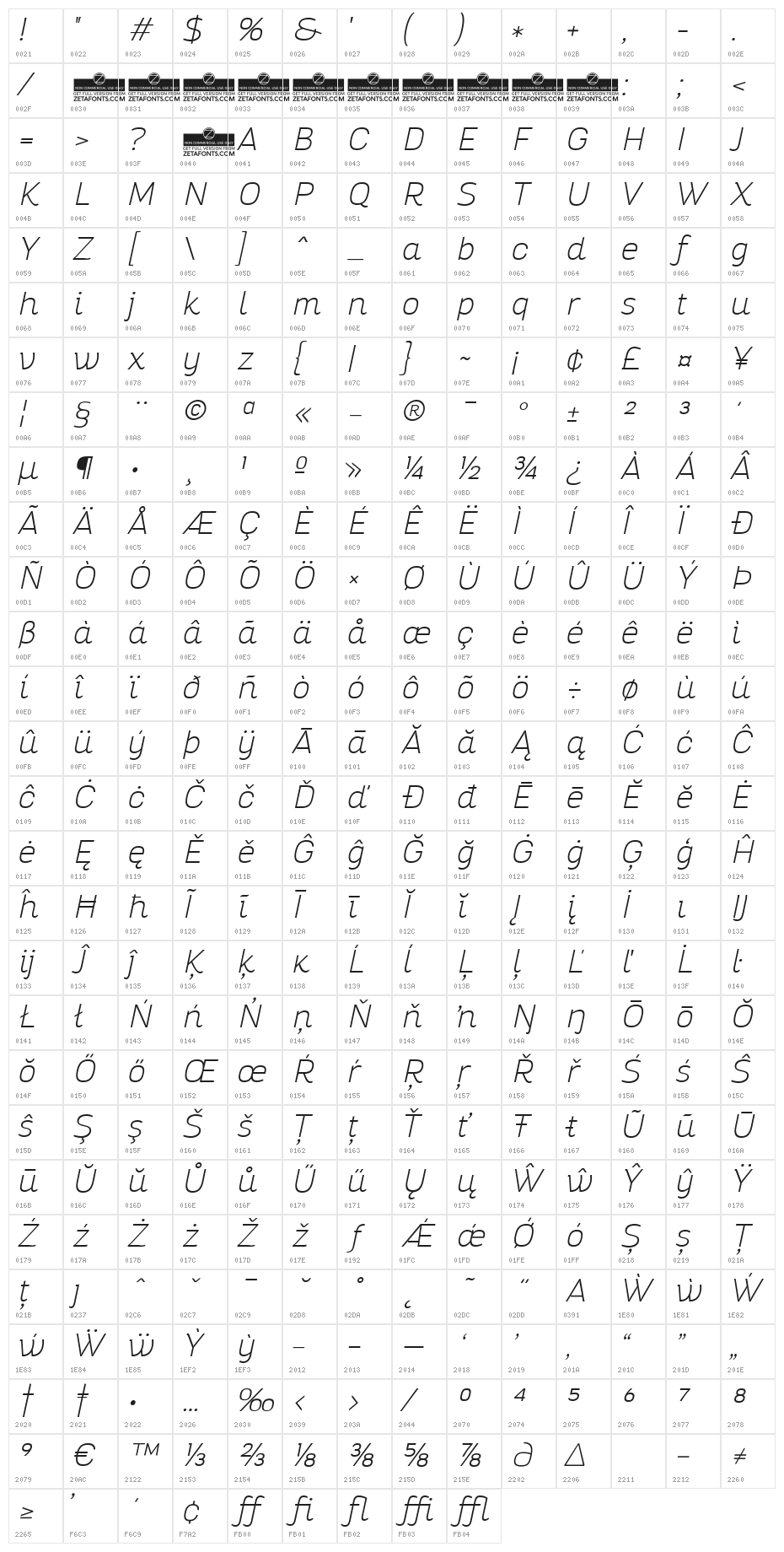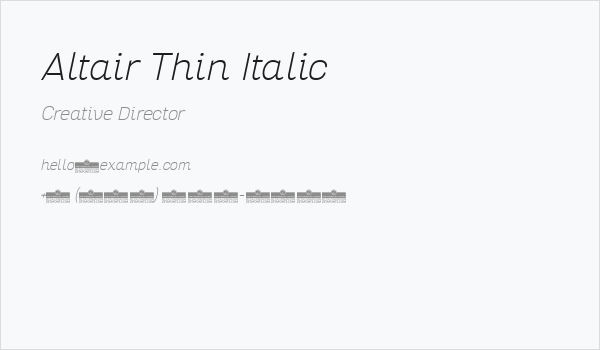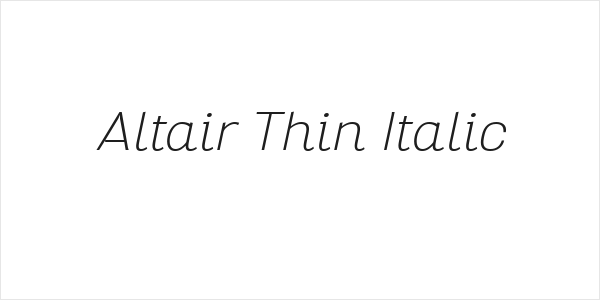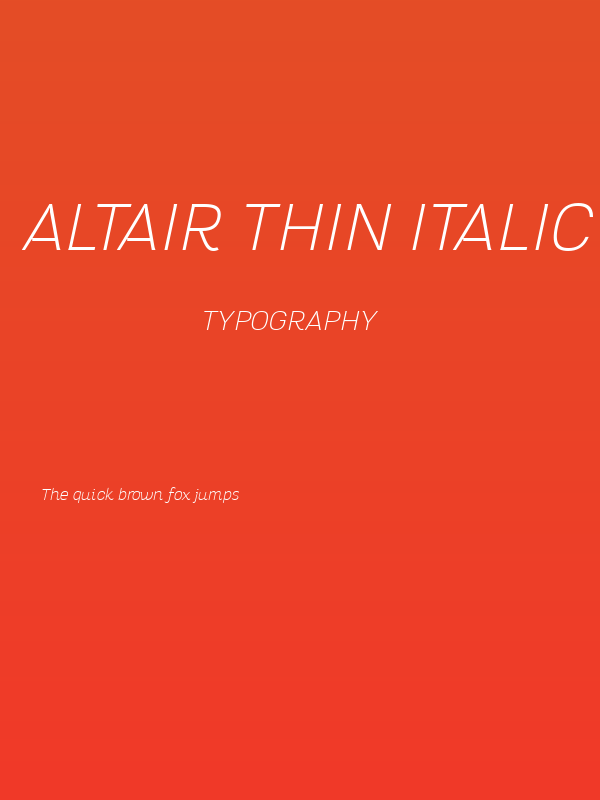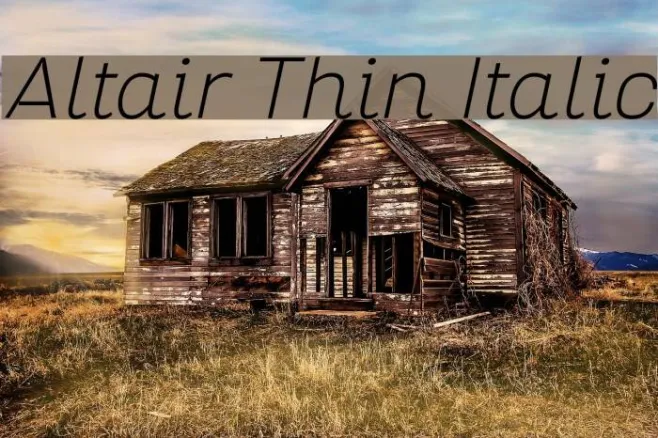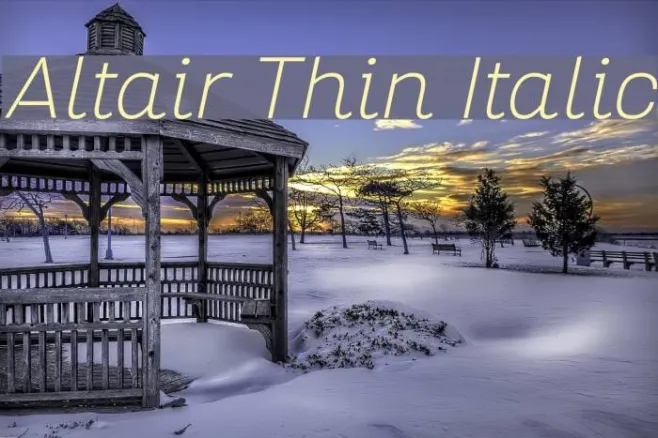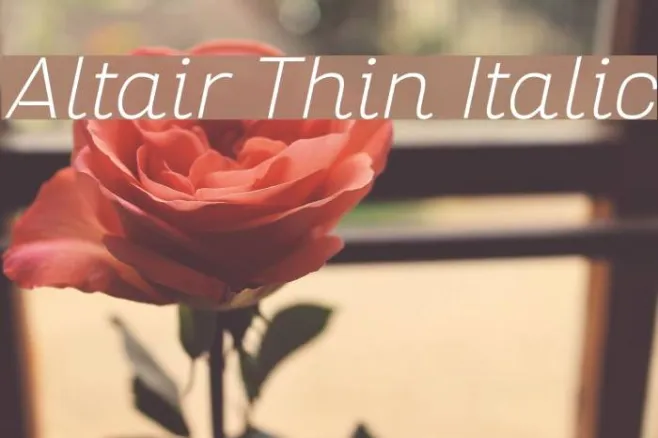
Altair Thin Italic Font
Altair Thin Italic Description
This elegant typeface features a sleek and modern design with a thin, italicized style. The characters are slightly slanted, giving a sense of motion and fluidity. The font maintains a clean and minimalist aesthetic, making it suitable for contemporary design projects. Its thin strokes are consistent throughout, providing a uniform appearance that enhances readability. The spacing between characters is balanced, ensuring clarity and legibility even at smaller sizes. This typeface is versatile, offering a sophisticated look that can be adapted to various contexts, from digital to print media.
| Proposed Projects | Ideal for fashion magazines, modern branding, elegant invitations, and minimalist websites. |